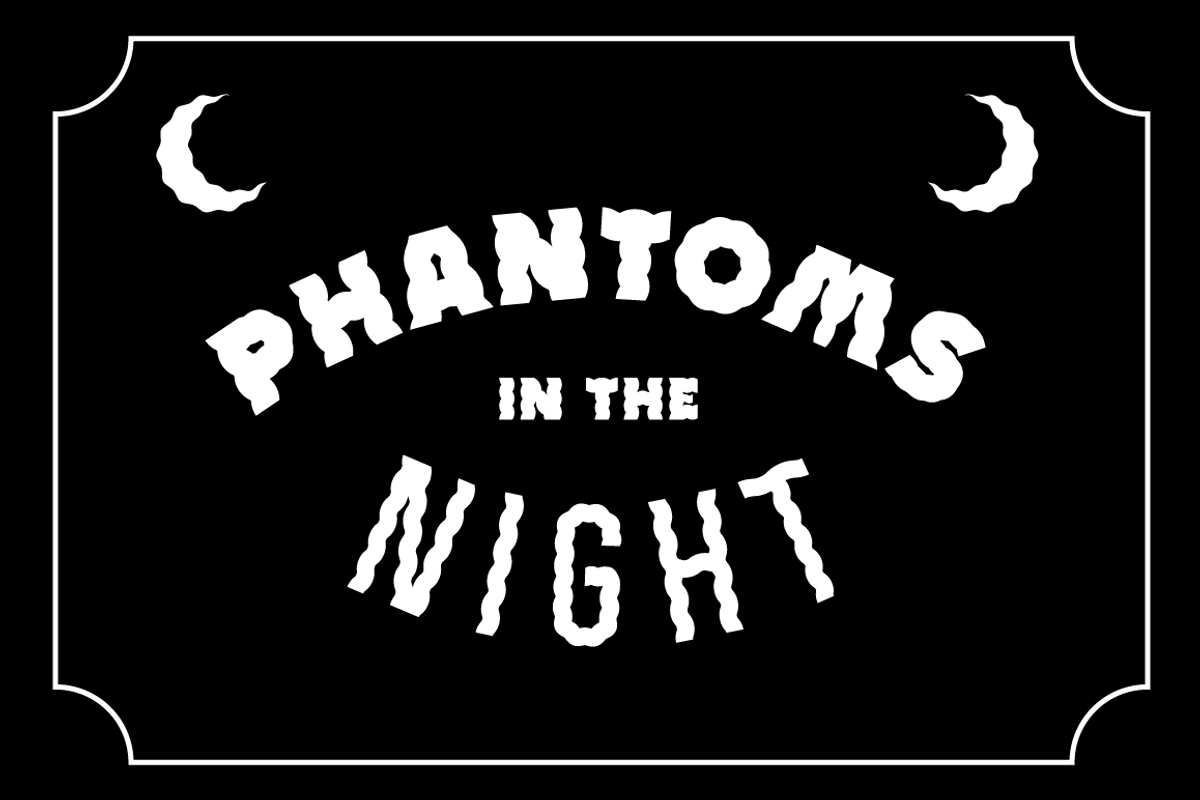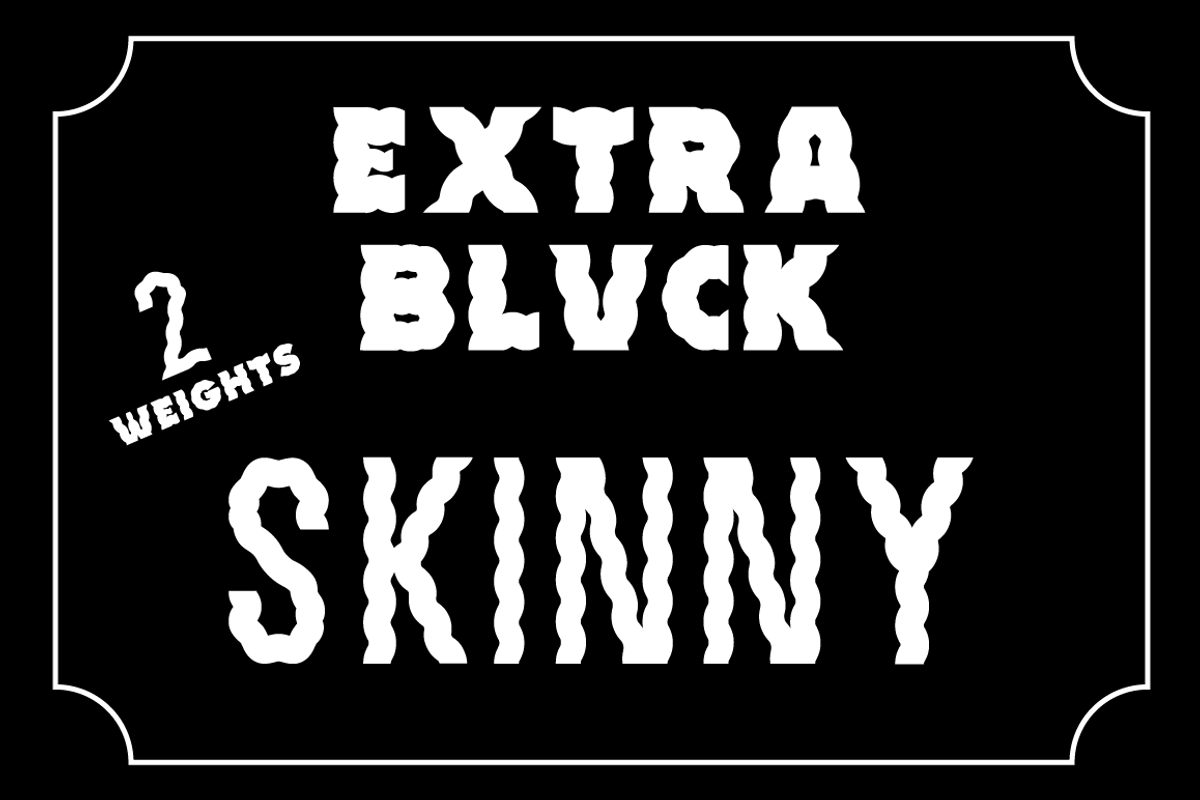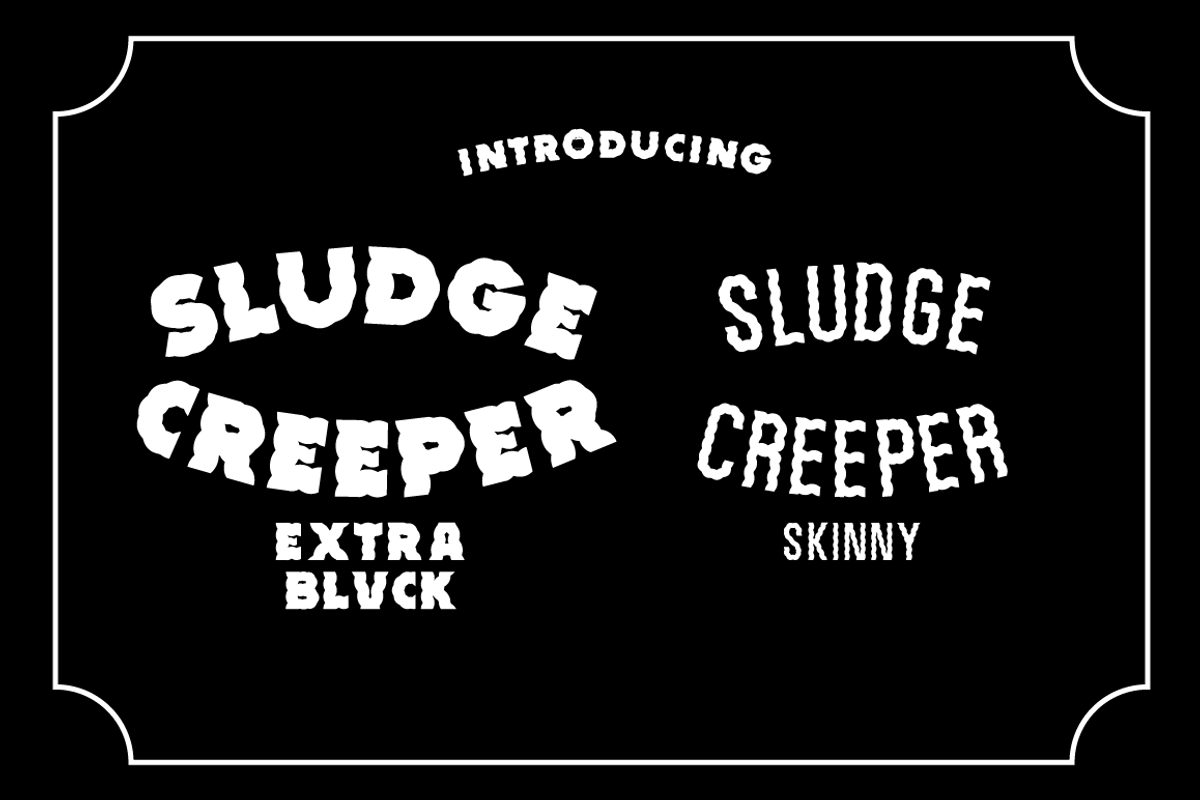
SLUDGE CREEPER TYPEFACE
A horror halloween typeface. •2 weights •EXTRA BLVCK •SKINNY
SLUDGE CREEPER TYPEFACE by venomthunder fits naturally into Branding, posters, packaging, typography.